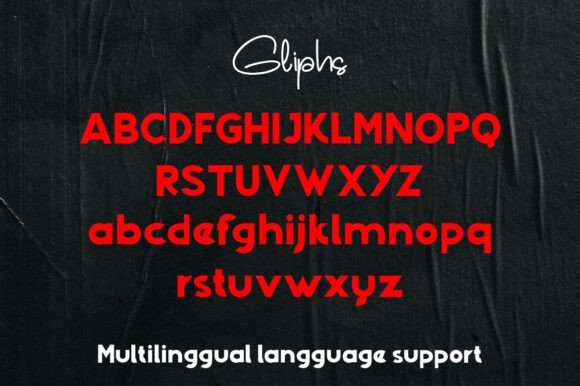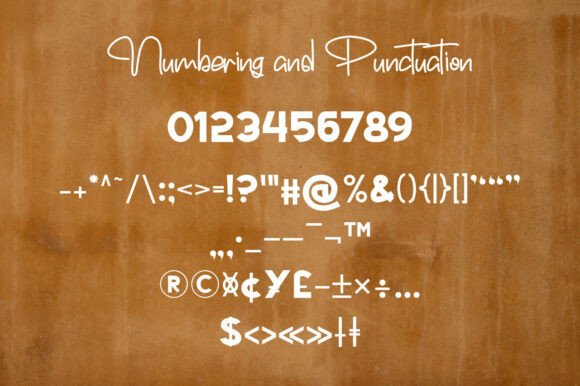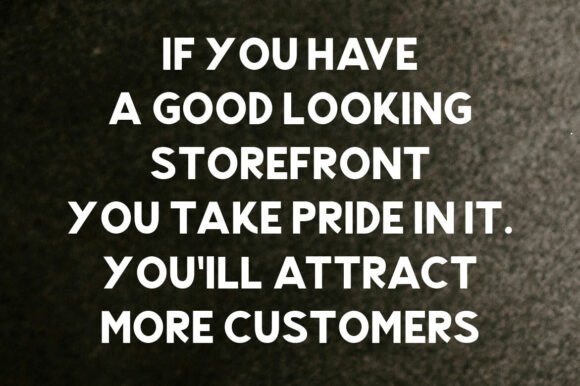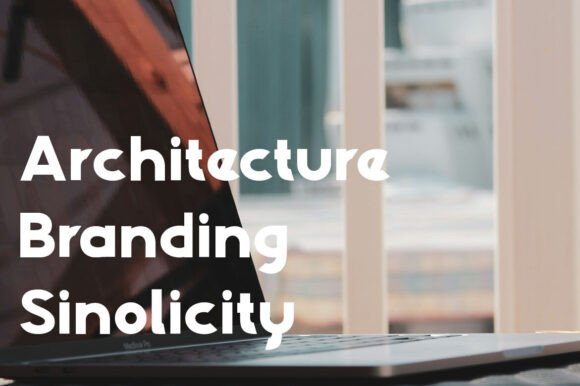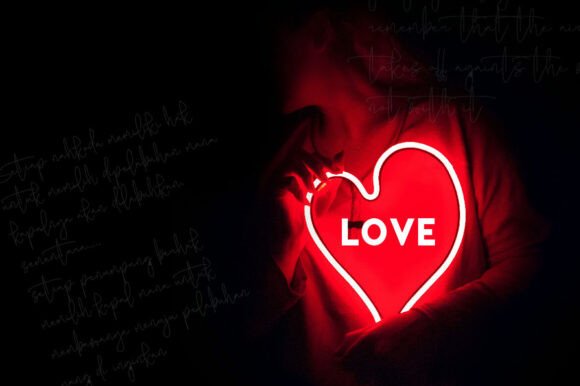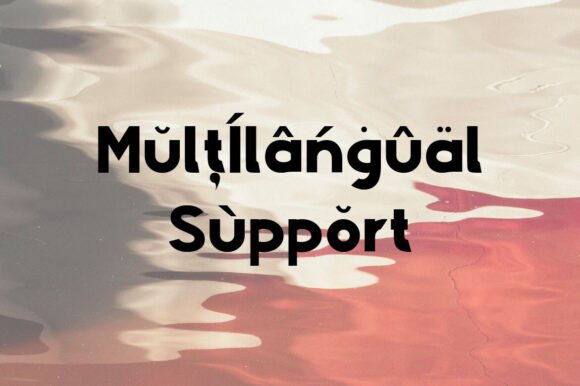
Introduction to Javanesia Font
Have you ever found yourself staring at a blank page, struggling to bring your creative vision to life? The right font can make all the difference, setting the tone for a project and elevating it to the next level. That’s where the Javanesia Font comes in – a modern and elegant sans serif font that’s sure to captivate your audience.
As a designer, you understand the importance of having a high-quality font that can be used across various creative projects, from printing and books to titles, headlines, and photography. The Javanesia Font is a valuable addition to your design resource library, offering a wealth of features that will make your work stand out. With its transparent background and free download option, you can experiment with this font without any limitations.
Key Features of Javanesia Font
- Unique and intricate design elements, perfect for adding an exotic touch to your designs.
- Transparent background, allowing for seamless integration with your design project.
- Available in a range of sizes and resolutions, including 300 DPI, making it suitable for various design applications.
- Perfect for designers looking for a distinctive and authentic Indonesian-inspired font to elevate their creative project.
Honest Review: Javanesia Font
I recently had the chance to work with the Javanesia Font, and I must say it’s been a game-changer for my creative projects. The font’s unique blend of traditional and modern elements makes it a standout choice for designers looking to add some personality to their work.
- ✨ Versatile and adaptable, making it suitable for a wide range of design applications
- ⚠️ Limited character set, which may not be ideal for extended text-based projects
- ⚠️ Not all characters have the same level of detail, which can affect the overall aesthetic of a design
Overall, I’m impressed with the Javanesia Font and would recommend it to designers looking for a high-quality design resource for their creative projects. With a little creativity, its limitations can be easily worked around, making it a valuable addition to any design toolkit.
Tips for Getting the Most Out of Javanesia Font
To get the most out of Javanesia Font, try using it with a transparent background to create a unique and eye-catching design. You can also experiment with different font sizes and colors to find the perfect look for your project.
Common Use Cases for Javanesia Font
The Javanesia Font is a versatile design resource that can be used in a variety of projects, including business cards, brochures, and social media graphics. Its high-quality design and transparent background make it perfect for creating professional-looking designs with ease.
Can I customize the Javanesia Font to fit my specific design needs?
Yes, the Javanesia Font is a highly customizable design resource that can be tailored to fit your specific design needs. You can use font editing software (such as Adobe Illustrator or FontForge) to modify the font’s characters, spacing, and other attributes. However, please note that any modifications you make to